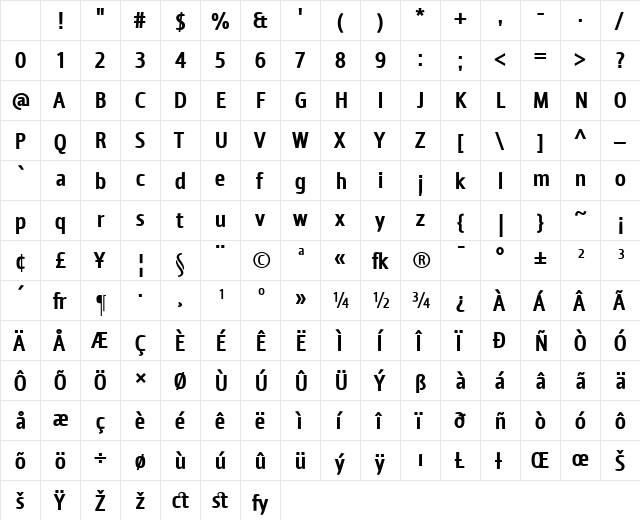
DioneBold is a composed and adaptable typeface that performs quietly and consistently across a wide range of design contexts. Its bold stroke weight gives it real presence on the page.